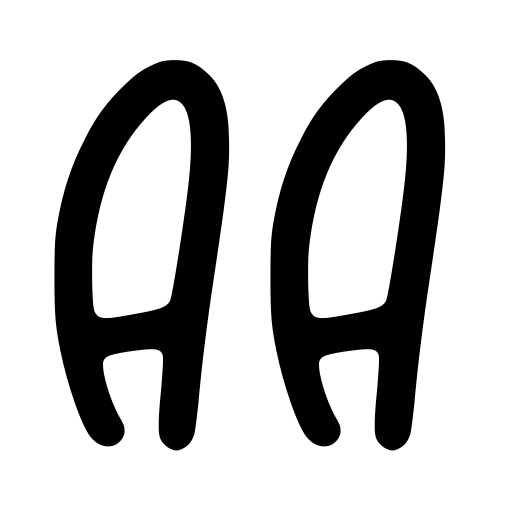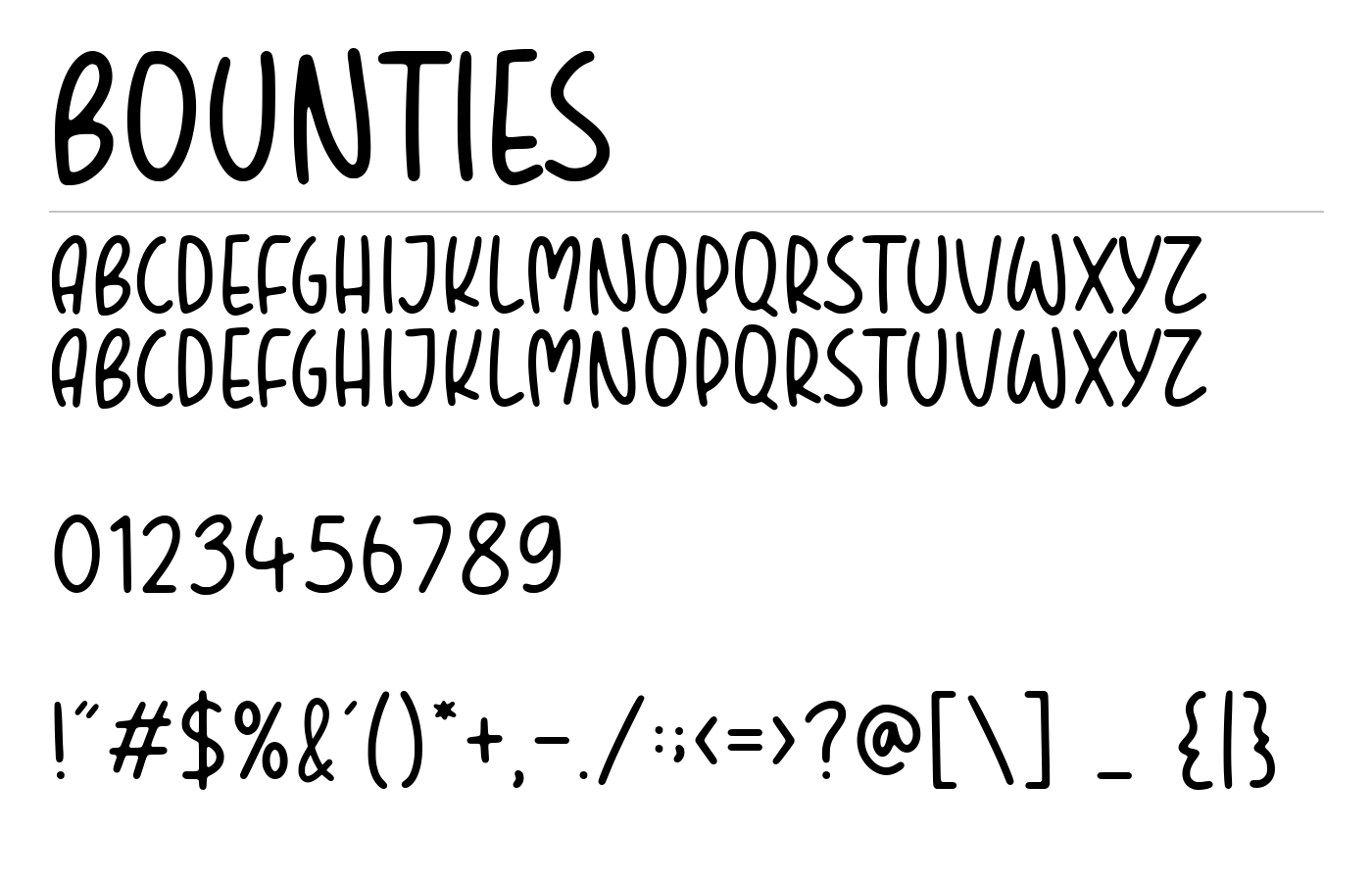
Bounties is a playful and friendly handwritten sans serif font with a casual, approachable style. Its irregular, slightly tall letterforms and smooth, rounded strokes give it a relaxed, informal feel that works well for creative projects, children's materials, and casual branding. This font is perfect for adding a personal touch to posters, invitations, and websites where a warm, hand-crafted look is desired.
BOUNTIES Font
About BOUNTIES Font